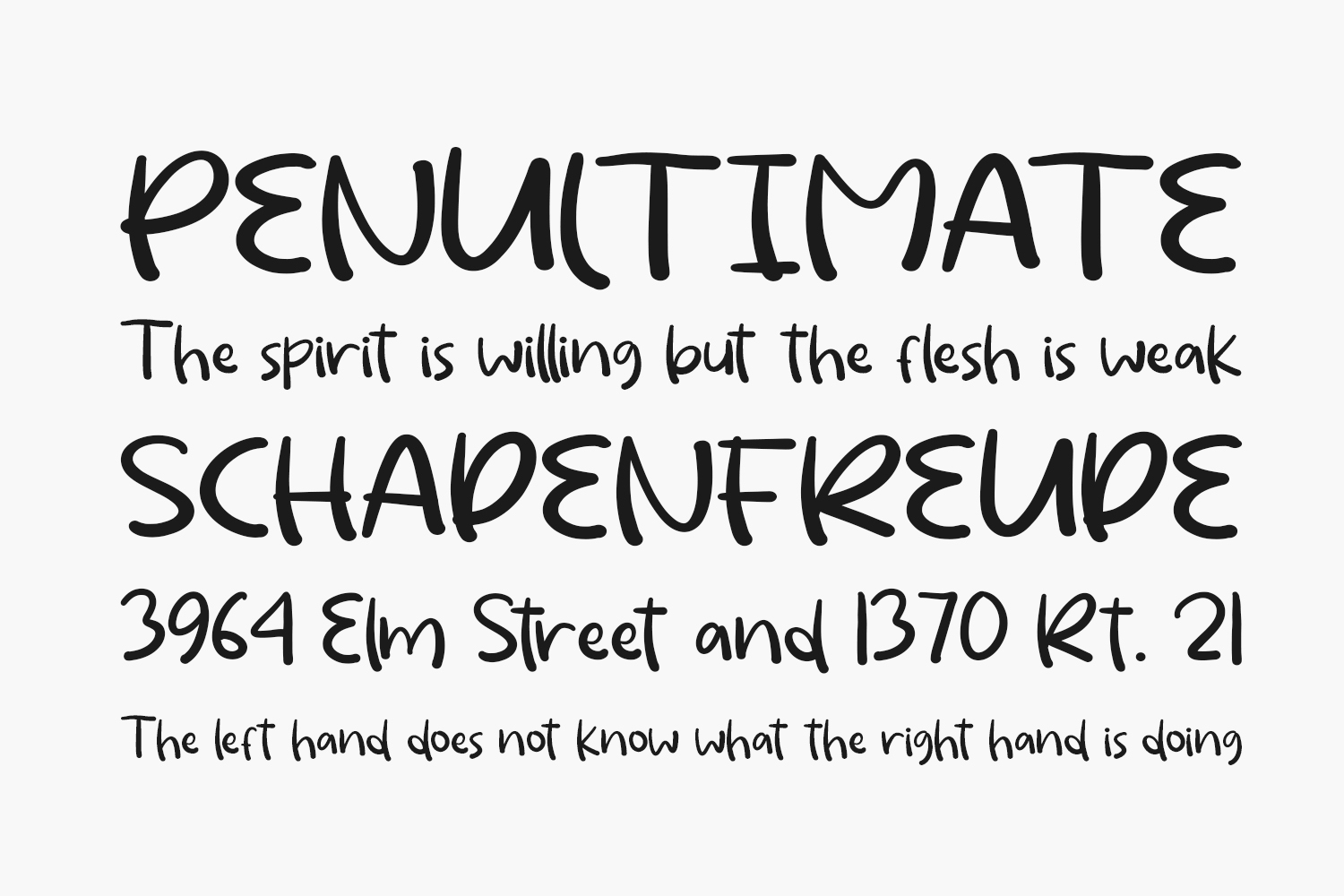
Fantasy Kids Free Font Family is a playful and quirky handwritten font perfect for any design you wish to create. Add it to your most creative ideas, and notice how it makes them come alive. Fantasy Kids Free Font Family is free for personal use only. Please purchase the full version for commercial use.
Fantasy Kids Regular The quick brown fox jumps over the lazy dog
Fantasy Kids Inverse The quick brown fox jumps over the lazy dog